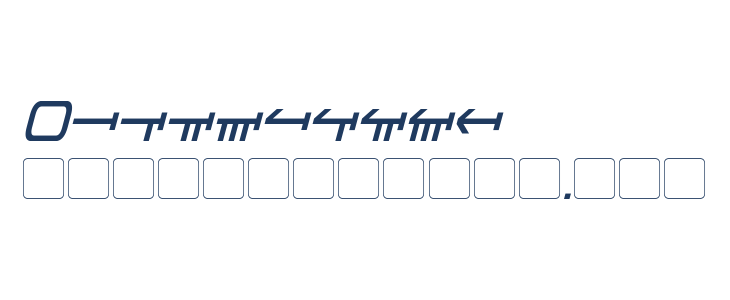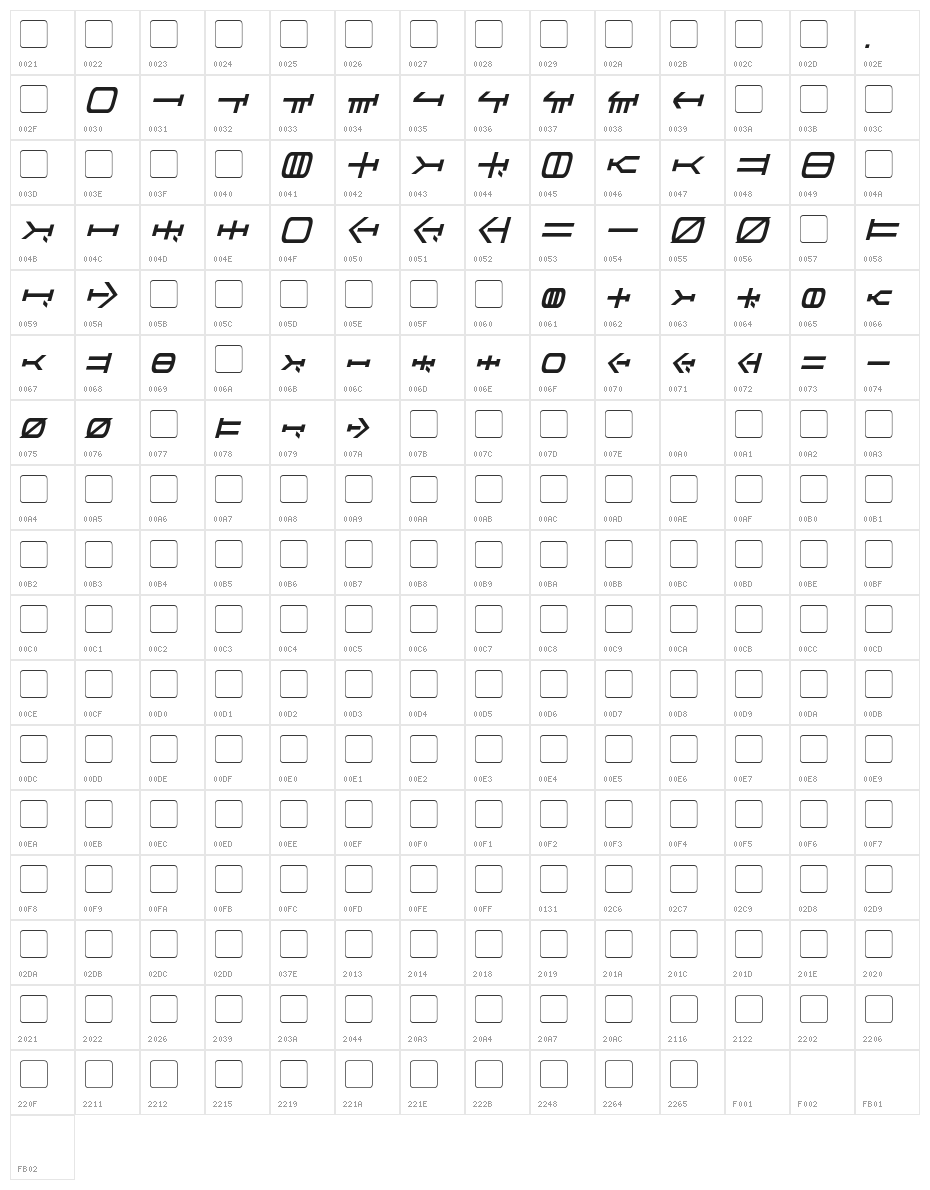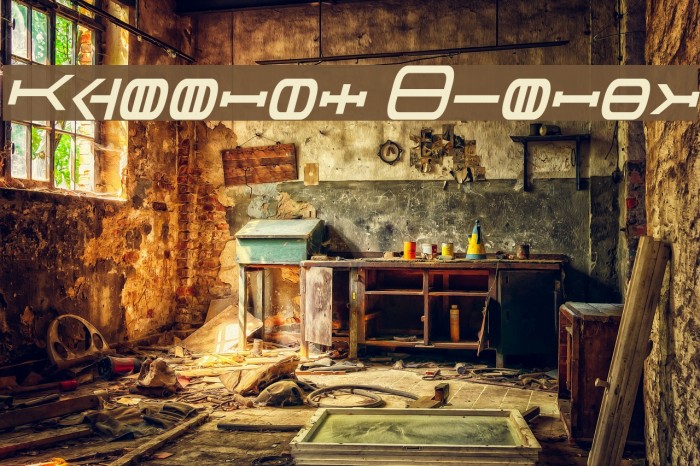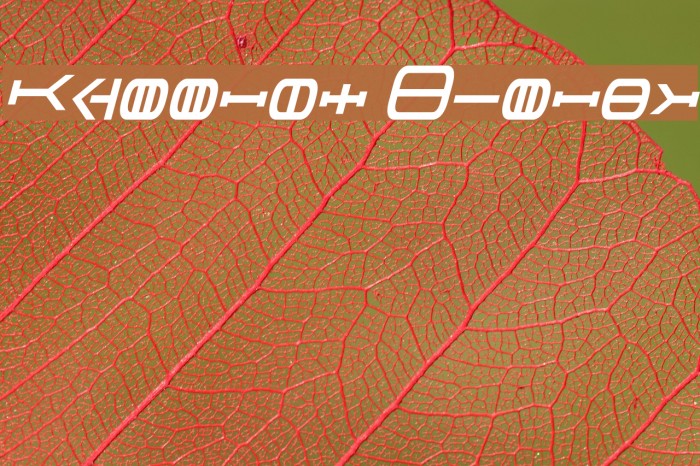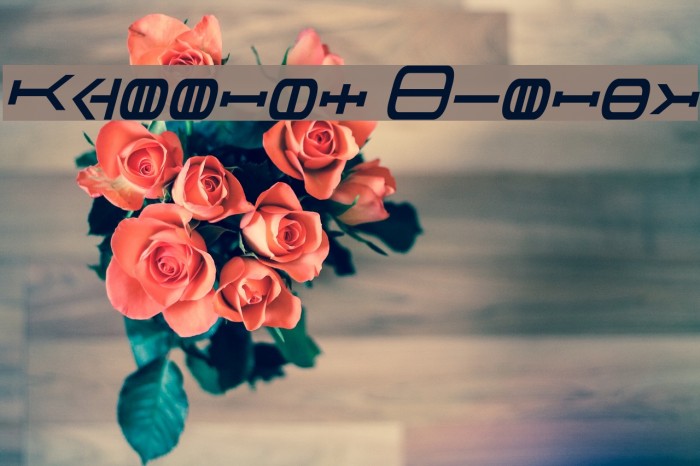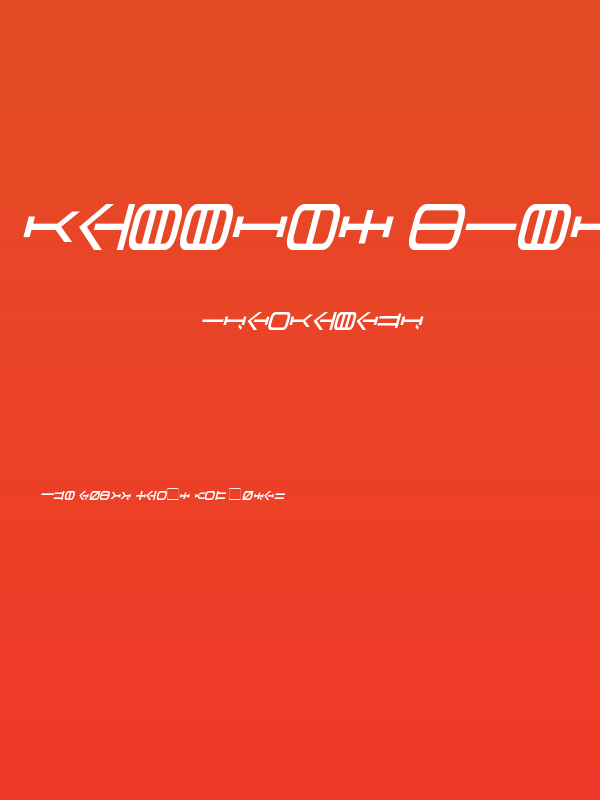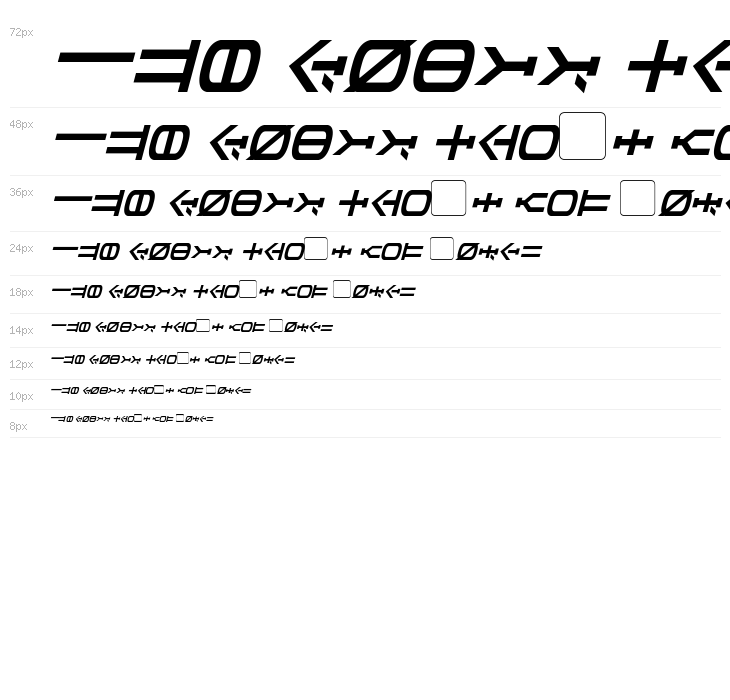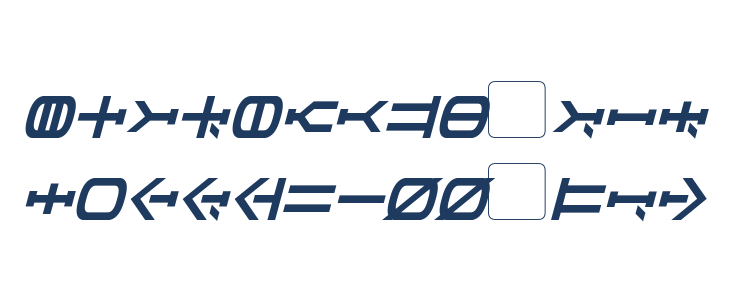
Graalen Italic Font
Graalen Italic Description
This font features a highly stylized and abstract design, characterized by angular and geometric shapes that resemble a futuristic or alien script. The characters are composed of sharp lines and curves, creating a unique and cryptic appearance. The overall design is consistent across both uppercase and lowercase letters, as well as numbers and special characters, maintaining a cohesive aesthetic. The font's distinct style makes it suitable for creative and unconventional projects where a sense of mystery or otherworldliness is desired.
| Overall Style | Futuristic, Abstract |
| Use Case | Logos, Titles, Creative projects |
| Proposed Projects | Ideal for sci-fi themed designs, video game interfaces, movie titles, or any project requiring a mysterious or alien aesthetic. |